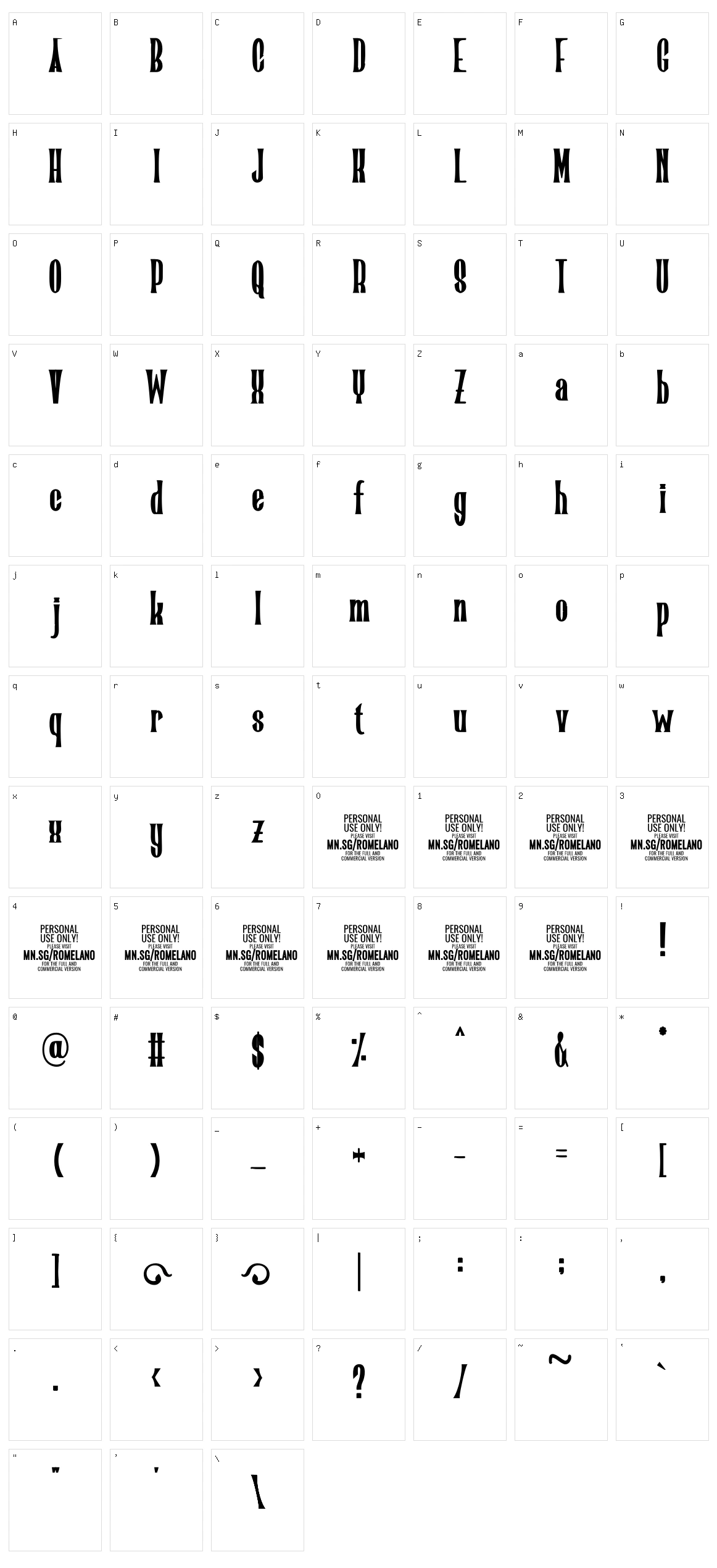
Romelano
Designed by: Mans Greback
Category: Retro
Romelano is a cool retro typeface.
Drawn and created in 2022, this fun hand lettering has a distinct style and a strong personality.
Use characters { } to make decorative elements.
Example: {Beautiful}
The font is built with advanced OpenType functionality and has a guaranteed top-notch quality, containing stylistic and contextual alternates, ligatures and more features; all to give you full control and customizability.
It has extensive lingual support, covering all Latin-based languages, from Northern Europe to South Africa, from America to South-East Asia.
It contains all characters and symbols you'll ever need, including all punctuation and numbers.